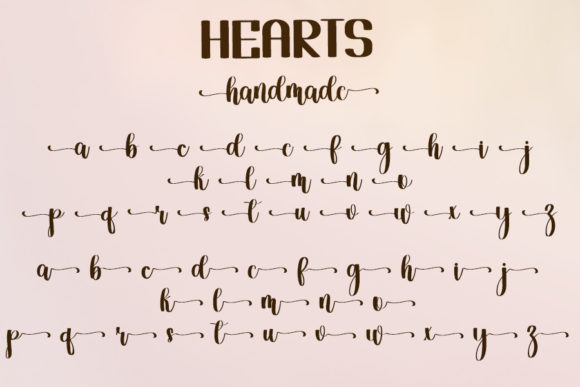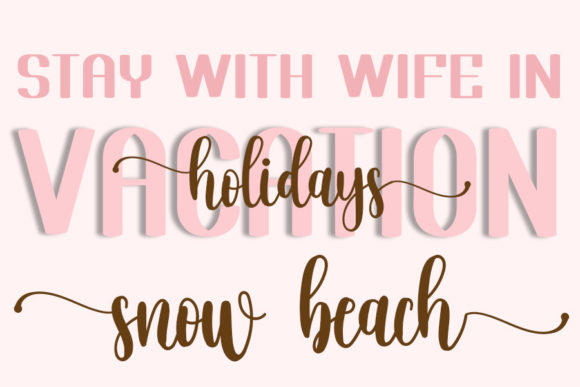
Hearts Handmade Font
db-ku.com - Script & Handwritten -- Hearts Handmade is an enchanting duo font (sans serif and handwritten). This versatile script font has a wide spectrum of applications ranging from greeting cards to headlines and is guaranteed to add a romantic feel to your next project.